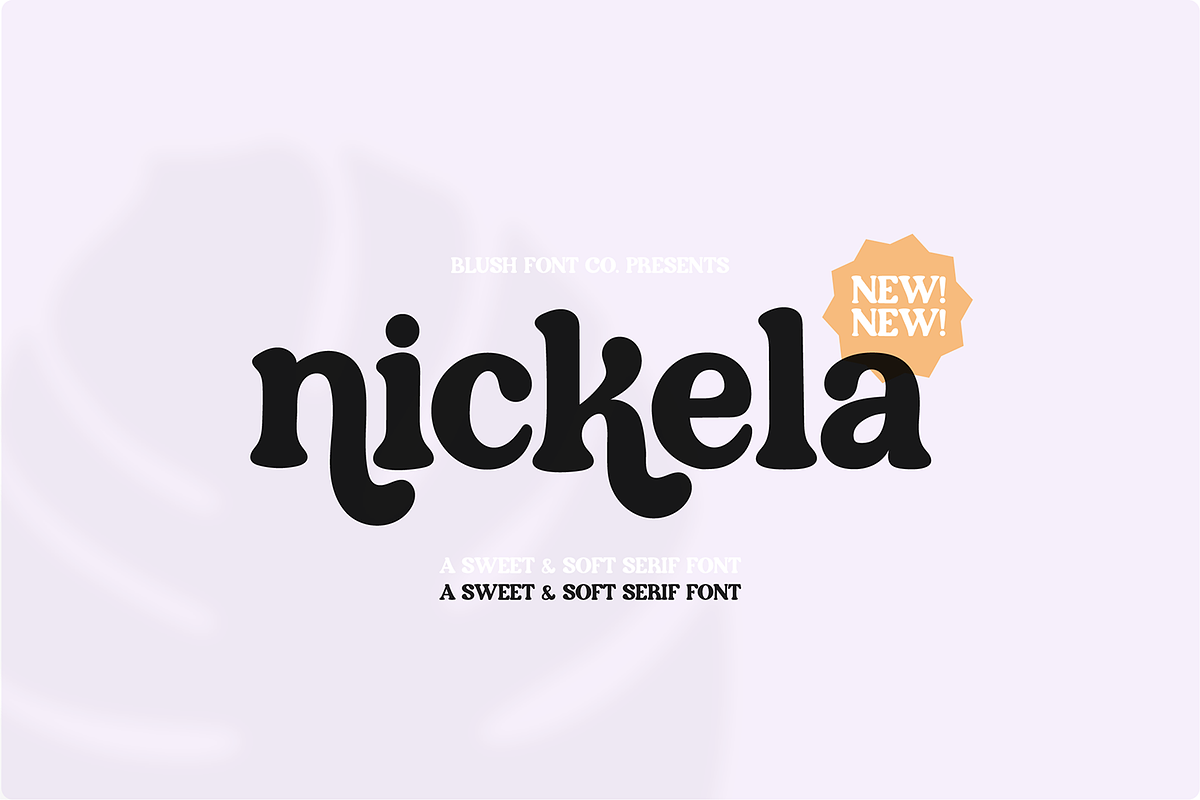
NICKELA Soft Serif Modern Font Free Download
Embrace subtle sophistication with NICKELA Soft Serif Modern Font Free Download — a contemporary typeface that balances clean structure with soft elegance. With rounded serifs and a refined aesthetic, NICKELA is perfect for branding, editorial layouts, packaging design, lifestyle blogs, and fashion-forward presentations.
This font brings a smooth, inviting tone to your text while maintaining a professional and polished appearance. It includes uppercase and lowercase characters, numerals, punctuation, and multilingual support — allowing designers to craft stunning visuals across different platforms and industries.
Let your typography breathe with beauty and clarity. Download NICKELA today and give your next design a soft yet striking visual identity.